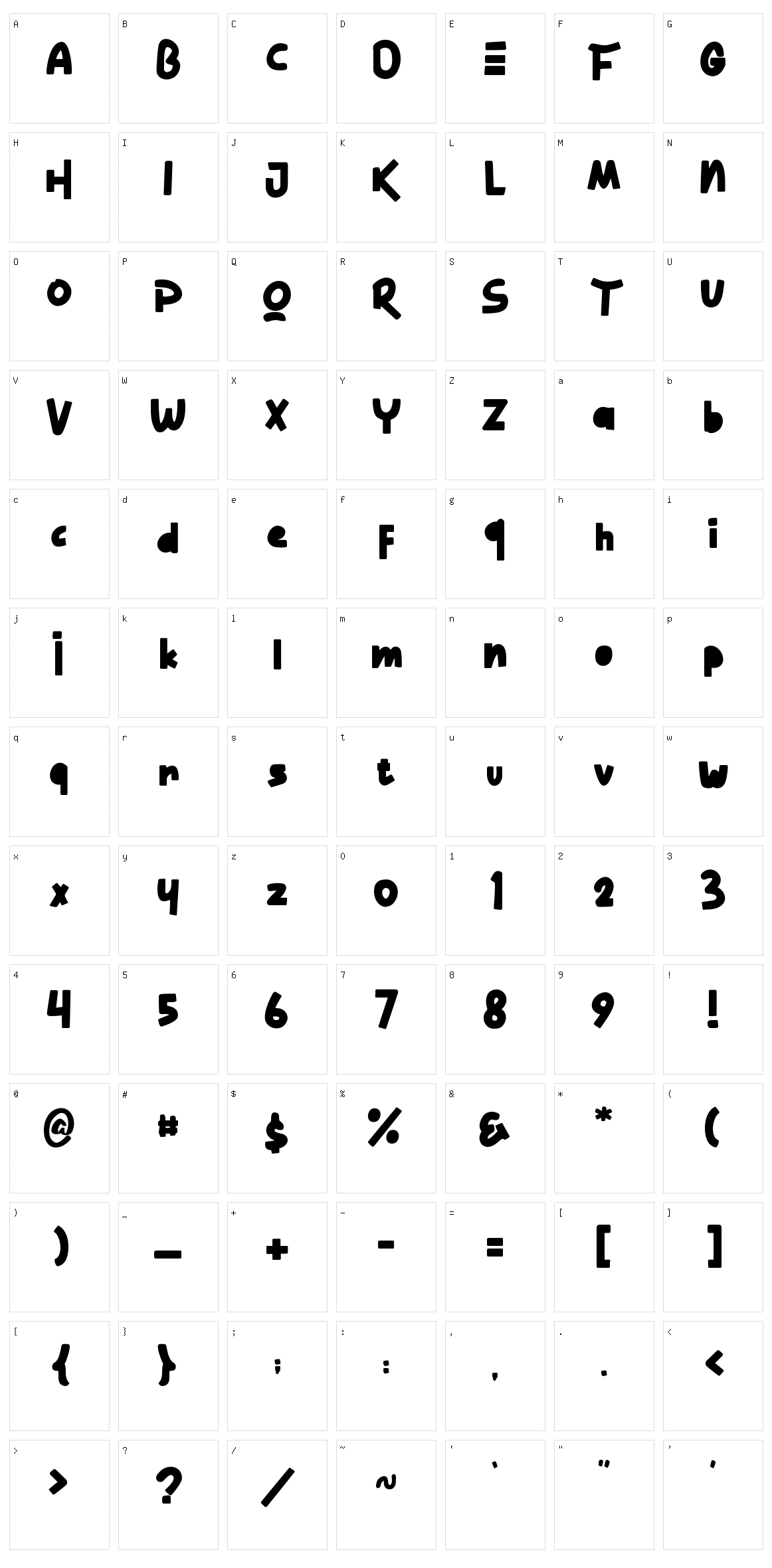
The free font Brownie Walnut is carefully designed by Tigadestd, showcasing a thoughtful balance of creativity and usability and falls under the Cartoon font style. When you download the ZIP file, it contains only 186.94 KB of font files, making it lightweight and quick to download. Please review the license details below to understand permitted usage and distribution rights. If license information is not available, we recommend using this font for personal projects only or contacting the author directly for commercial usage permissions.